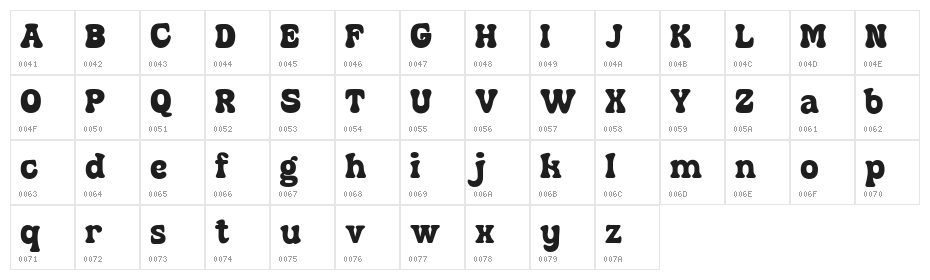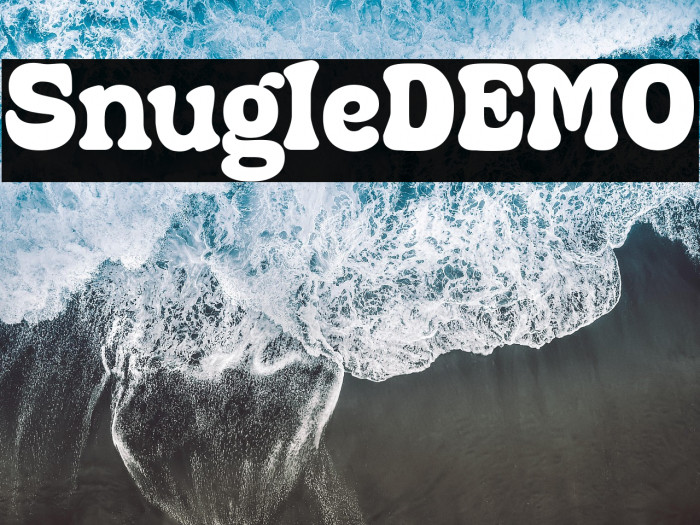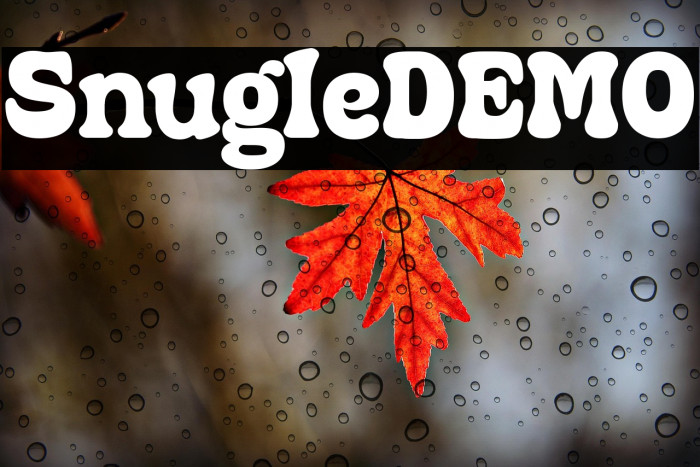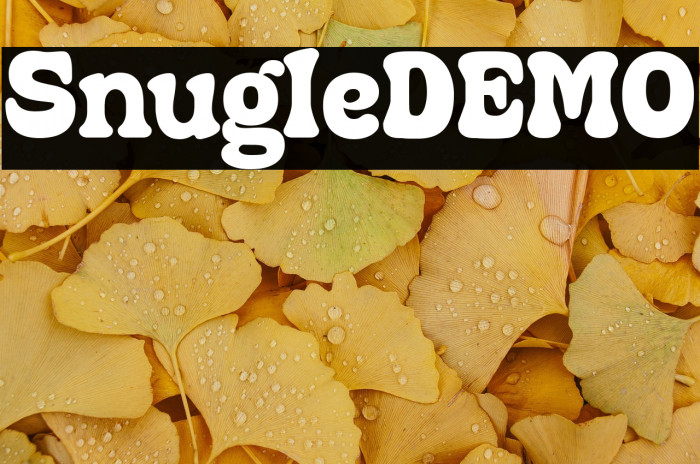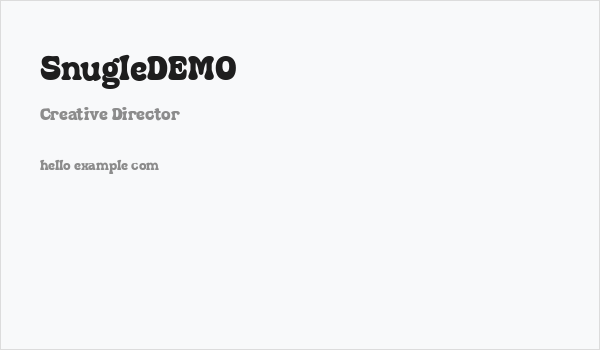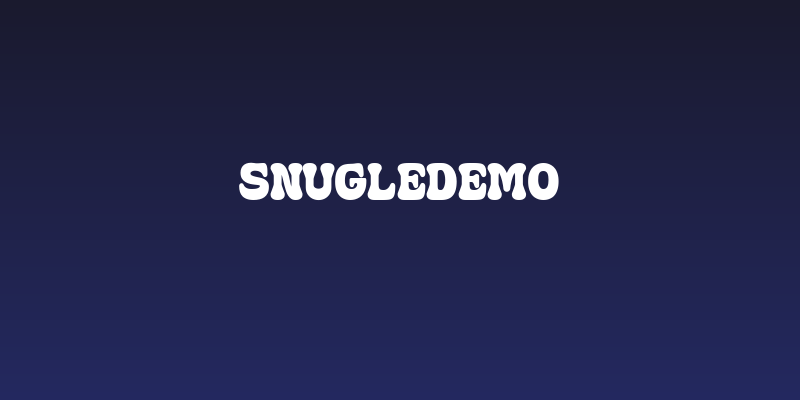
SnugleDEMO Font
SnugleDEMO Description
This font features a bold and playful design with rounded edges and a bubbly appearance. The characters are thick and have a whimsical style, making them stand out with a friendly and approachable vibe. The uppercase and lowercase letters maintain a consistent weight and width, contributing to a cohesive look. The font's unique style is characterized by its soft curves and slightly exaggerated forms, which give it a distinctive and memorable appearance. It is well-suited for projects that require a fun and engaging visual element.
| Proposed Projects | Ideal for children's books, playful branding, event posters, and creative packaging. |